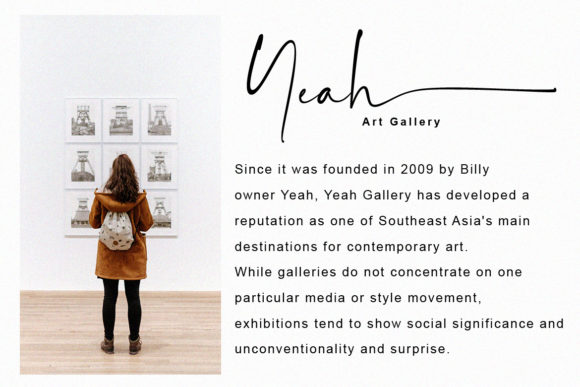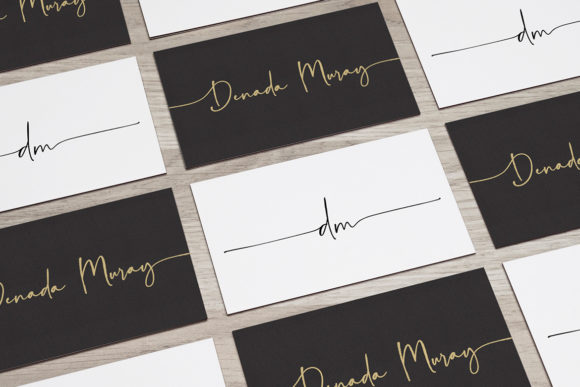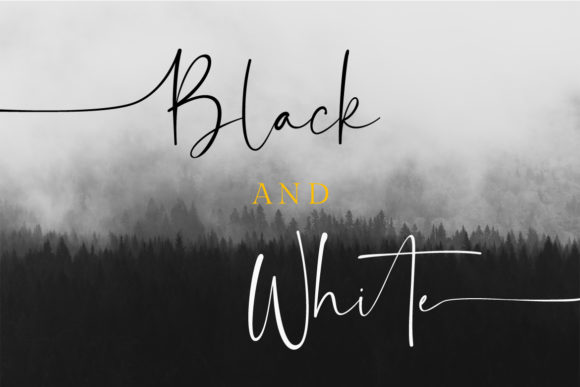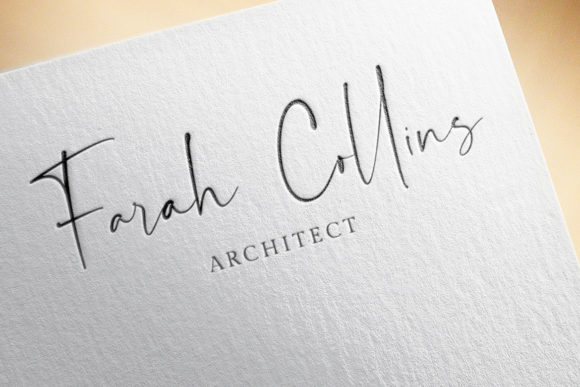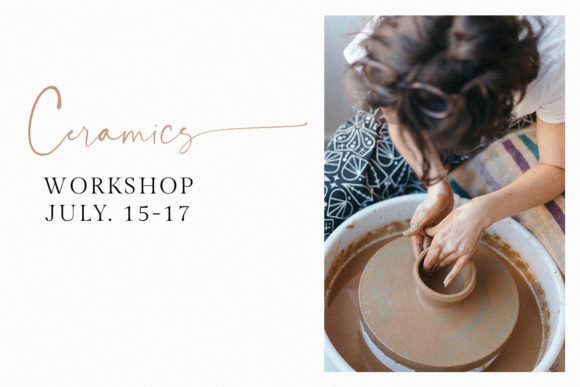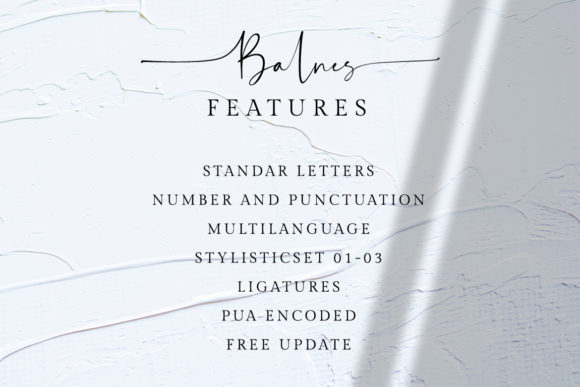
Unleash Your Creativity with Balnes Font: A Stunning Script Font with a Bold Twist
Are you a designer or crafter looking for a font that can add a touch of elegance and sophistication to your projects? Look no further than Balnes Font, a stunning and refined script font with a bold twist. In this article, we’ll explore the unique features of Balnes Font, its raw authenticity, and how you can get inspired by its beauty.
What is Balnes Font?
Balnes Font is a modern script font that combines classic elegance with a bold and edgy twist. Its refined lines and curves make it perfect for a wide range of design projects, from luxury branding and advertising to crafting and DIY tutorials. Whether you’re creating a stylish logo, a beautiful wedding invitation, or a unique craft project, Balnes Font is sure to impress.
The Unique Features of Balnes Font
So, what sets Balnes Font apart from other script fonts on the market? Here are just a few of its unique features:
- Bold and Refined Lines: Balnes Font features bold and refined lines that give it a luxurious and sophisticated feel. Its lines are smooth and flowing, making it perfect for creating beautiful and elegant designs.
- Raw Authenticity: Despite its refined appearance, Balnes Font has a raw and authentic feel that sets it apart from other script fonts. Its bold twist adds a touch of edginess and modernity, making it perfect for designers and crafters who want to create unique and eye-catching designs.
- High Versatility: Balnes Font is incredibly versatile and can be used for a wide range of design projects. Whether you’re creating a logo, a brochure, or a craft tutorial, Balnes Font is sure to adapt to your needs.
How to Get Inspired by Balnes Font
Now that we’ve explored the unique features of Balnes Font, let’s talk about how you can get inspired by its beauty. Here are a few ideas to get you started:
- Experiment with Different Design Projects: Try using Balnes Font in different design projects, such as logo design, brochure design, or even craft tutorials. See how it looks in different contexts and experiment with different colors and layouts.
- Play with Font Combinations: Balnes Font looks great on its own, but it can also be paired with other fonts to create a unique and eye-catching design. Try pairing it with a bold sans-serif font or a elegant serif font to create a stunning contrast.
- Use it for Crafting and DIY Projects: Balnes Font is perfect for crafters and DIY enthusiasts who want to add a touch of elegance and sophistication to their projects. Try using it for crafting tutorials, DIY instructions, or even handmade product labels.
Tips and Tricks for Using Balnes Font
Here are a few tips and tricks to keep in mind when using Balnes Font:
- Use it in Large Sizes: Balnes Font looks stunning in large sizes, so don’t be afraid to use it for headlines or titles. Its bold lines and refined curves make it perfect for creating eye-catching designs.
- Experiment with Colors: Balnes Font looks great in a wide range of colors, from bold and bright to soft and pastel. Experiment with different colors to see what works best for your design.
- Pay Attention to Kerning: As with any font, kerning is important when using Balnes Font. Make sure to adjust the kerning to ensure that the letters flow smoothly and elegantly.
In conclusion, Balnes Font is a stunning and refined script font with a bold twist that’s perfect for designers and crafters who want to add a touch of elegance and sophistication to their projects. Its unique features, raw authenticity, and high versatility make it a great choice for a wide range of design projects. Whether you’re creating a logo, a brochure, or a craft tutorial, Balnes Font is sure to inspire your creativity and help you create beautiful and eye-catching designs.